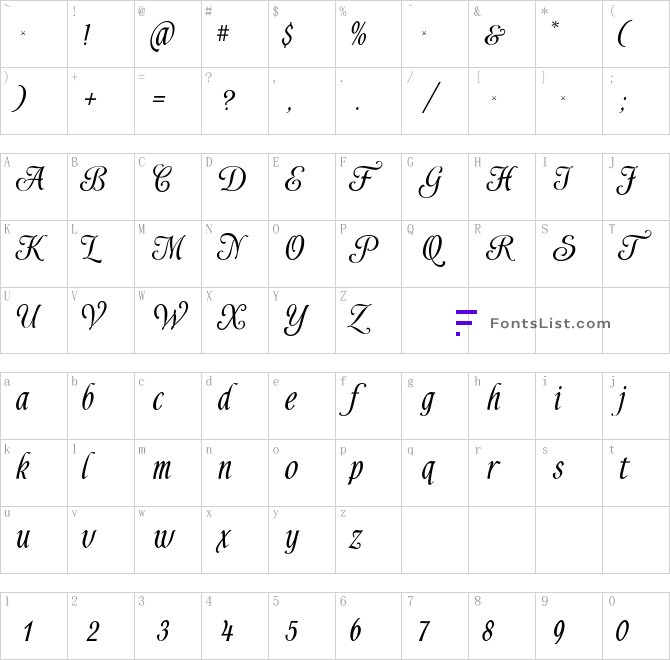
- Font Name:Alys Script Bold
Alys-Script-Bold.ttf is a very beautiful artistic font, Alys-Script-Bold.ttf is widely used in the design and printing of various books and pictures,Alys-Script-Bold.ttf has a strong visual impact,Alys-Script-Bold.ttf is a commonly used font in newspapers, magazines and books, and is used in posters, e-commerce Poster design, store design, logo design, font design and other fields.Alys-Script-Bold.